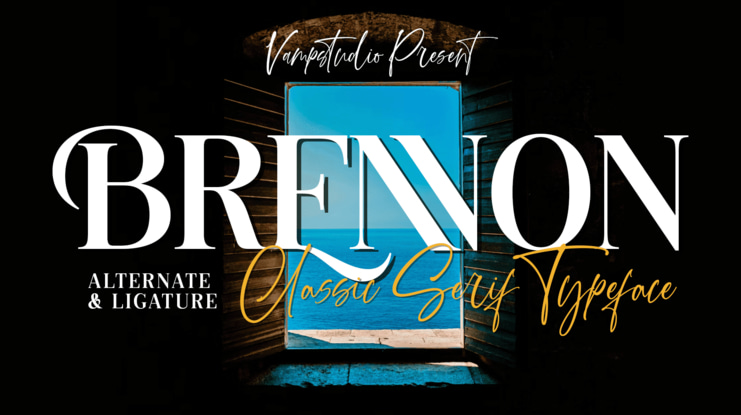
Brennon Font
Brennon” – Where Modernity Meets Timeless Elegance.
Elevate your designs with “Brennon,” a versatile font that seamlessly blends contemporary sophistication with timeleass charm. Boasting clean lines and a modern aesthetic, it adds a touch of refined flair to branding, editorials, digital designs, and more. If you want to purchase a COMMERCIAL LICENSE, please click on the following links: https://vampfonts.com/shop/brennon/